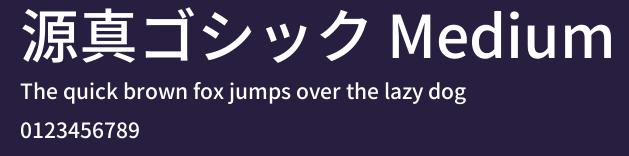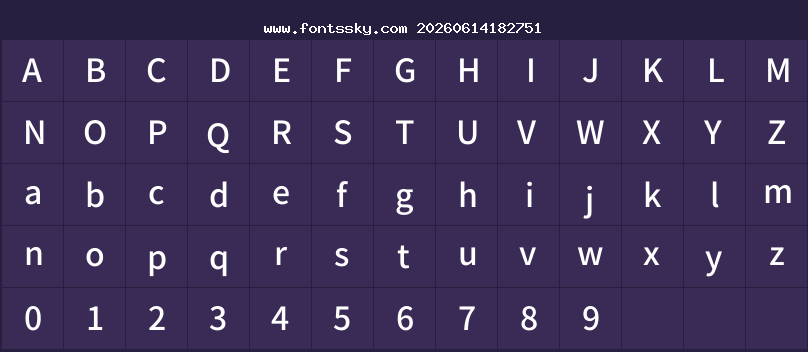
About 源真ゴシック Medium.ttf
源真ゴシック Medium.ttf is a modern, elegant sans-serif font designed for ultimate readability and visual harmony. Perfect for branding, headlines, web design, and print materials.